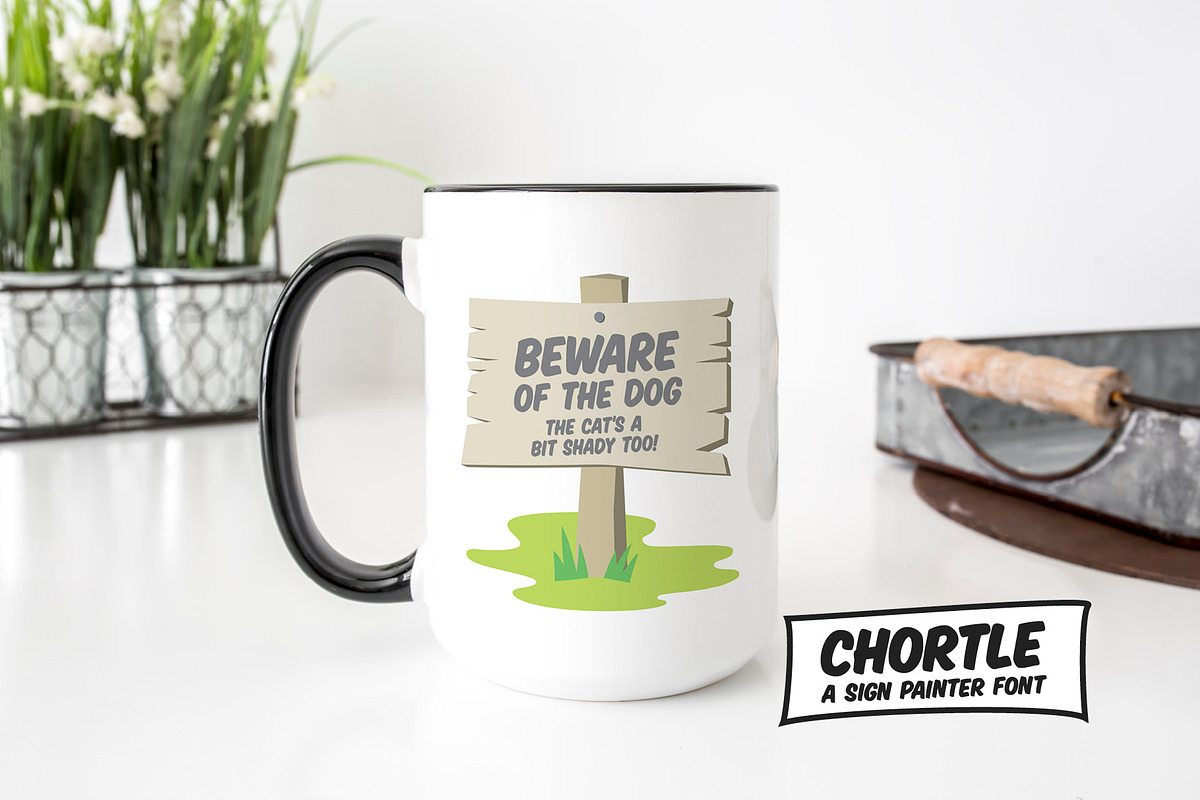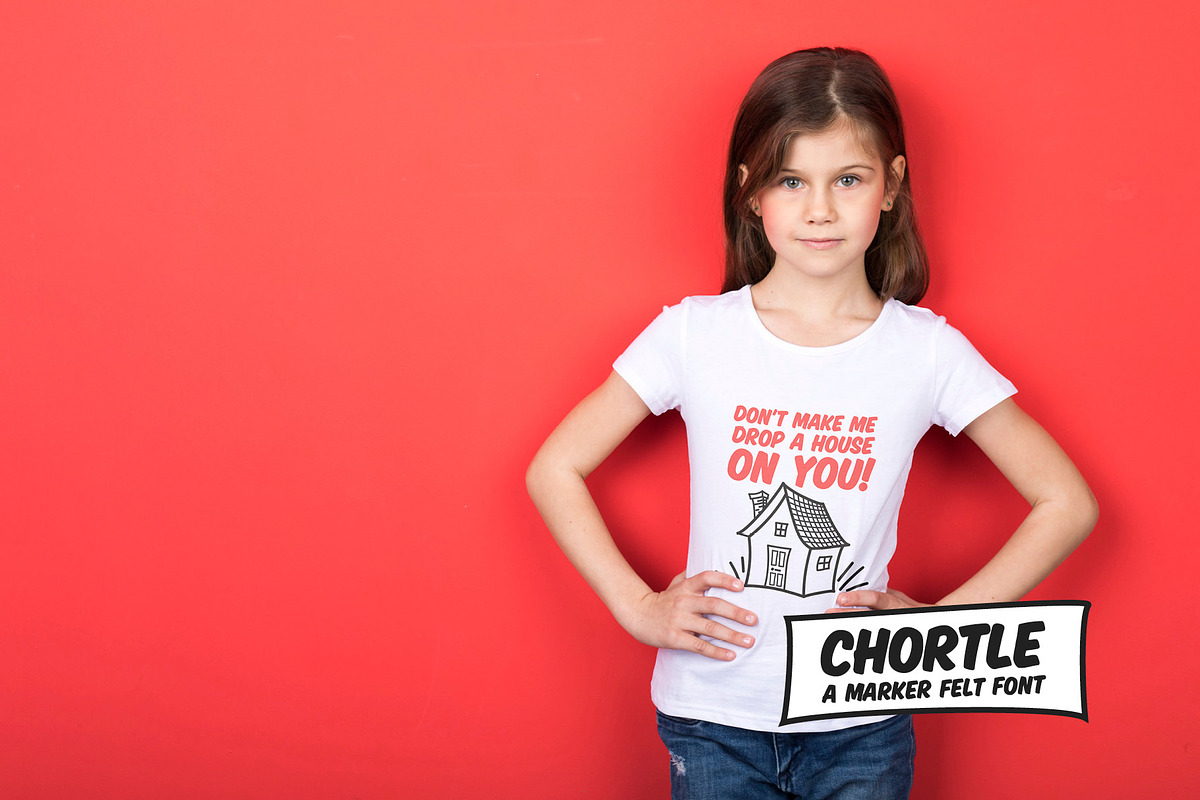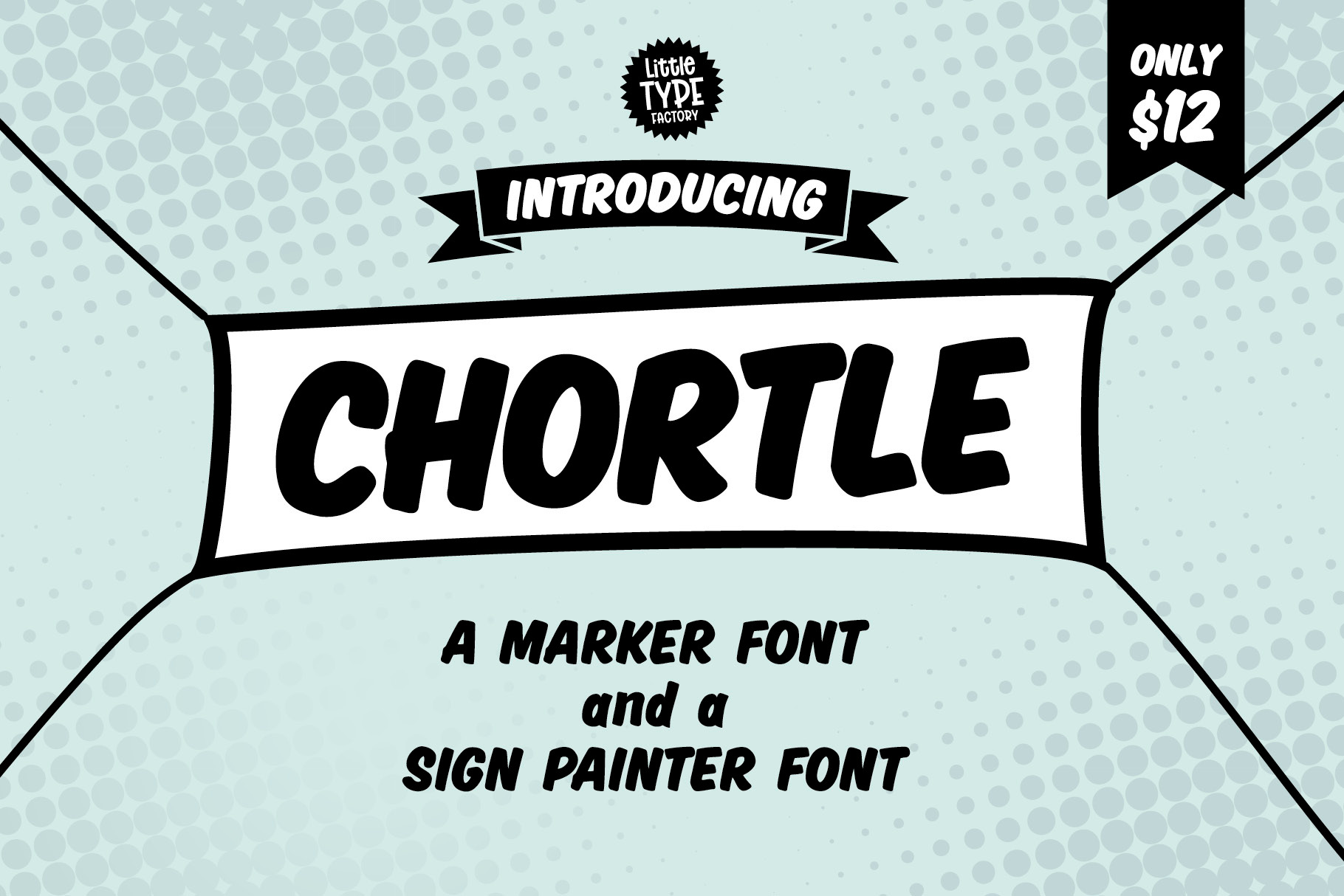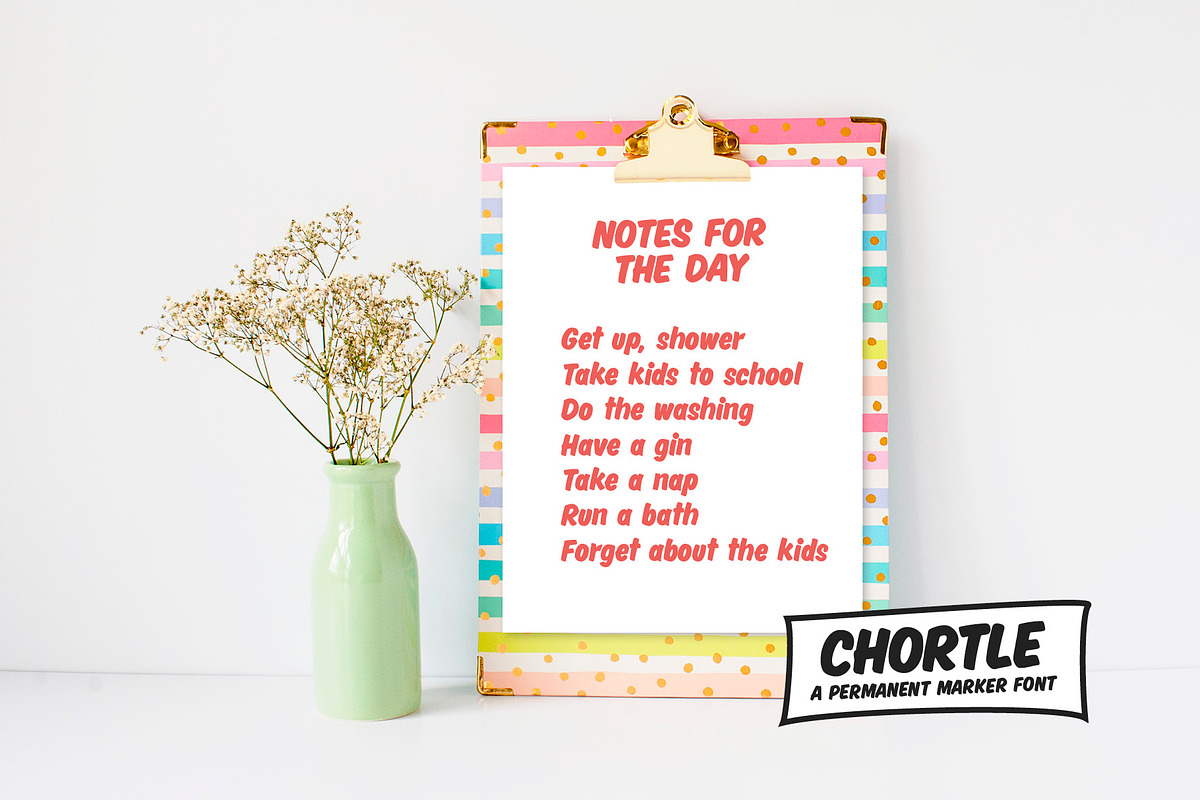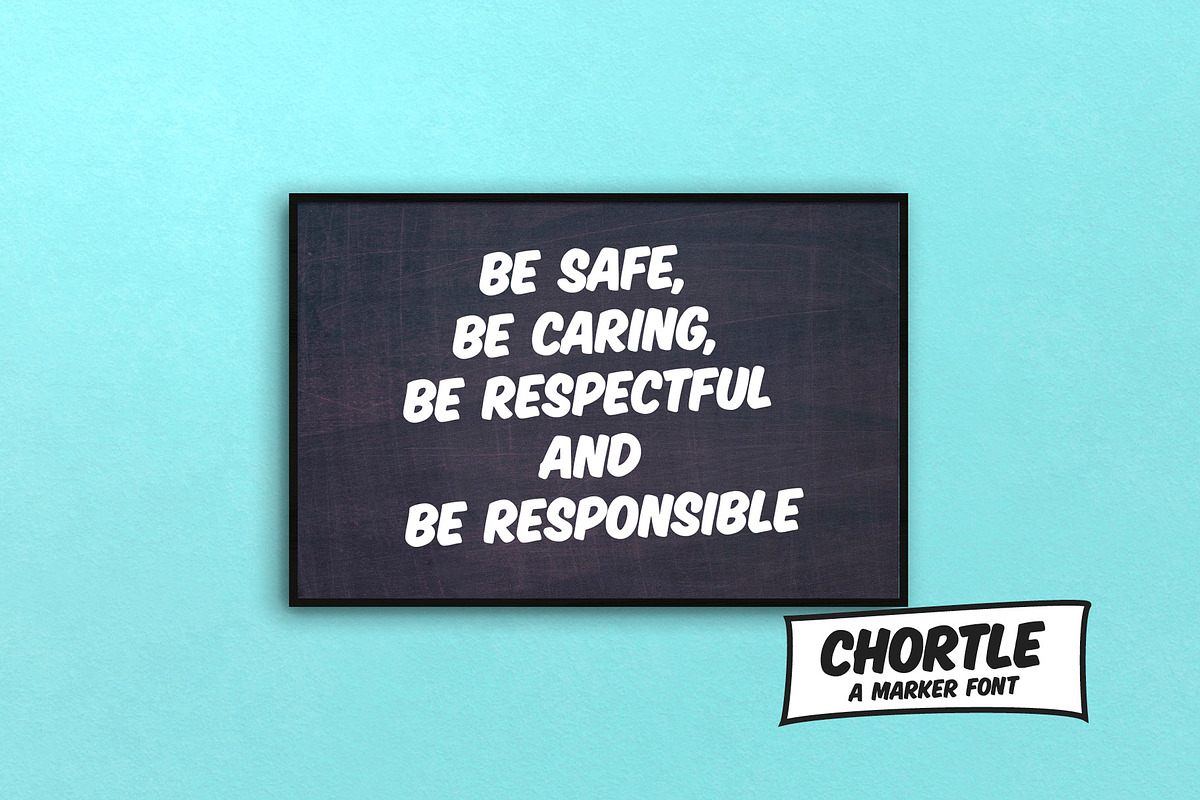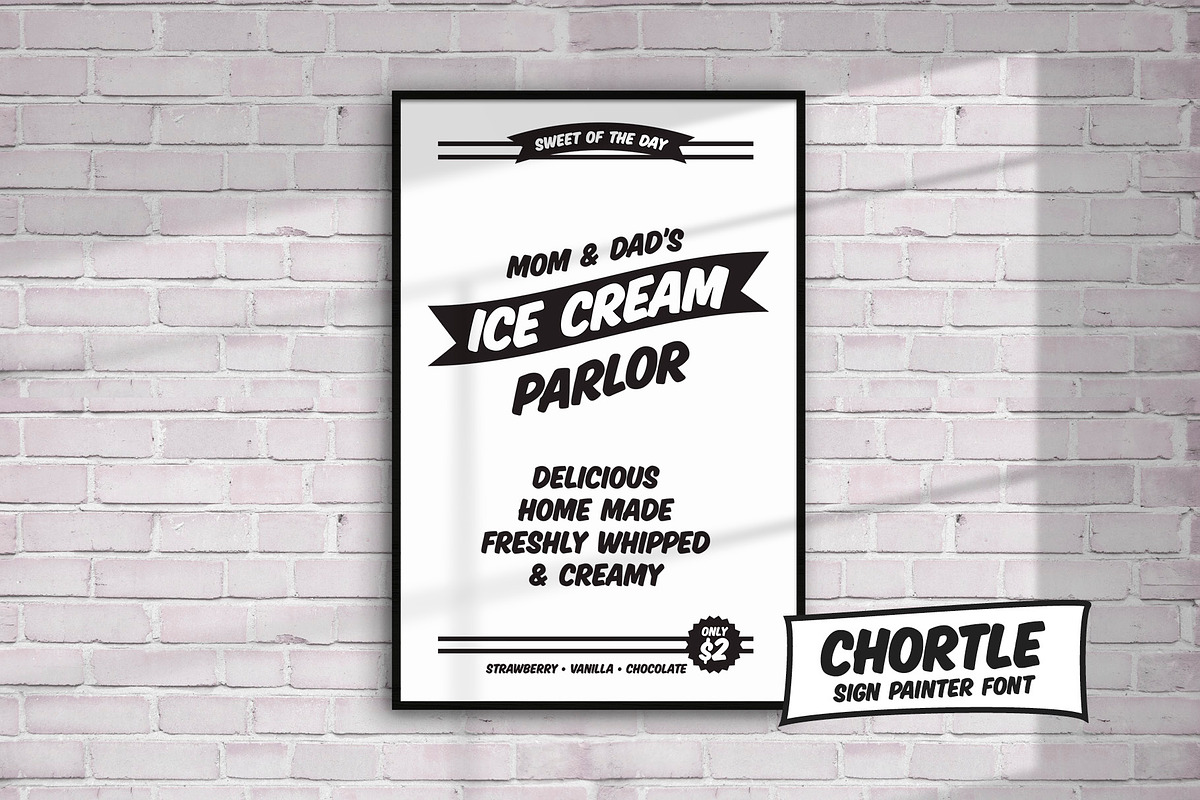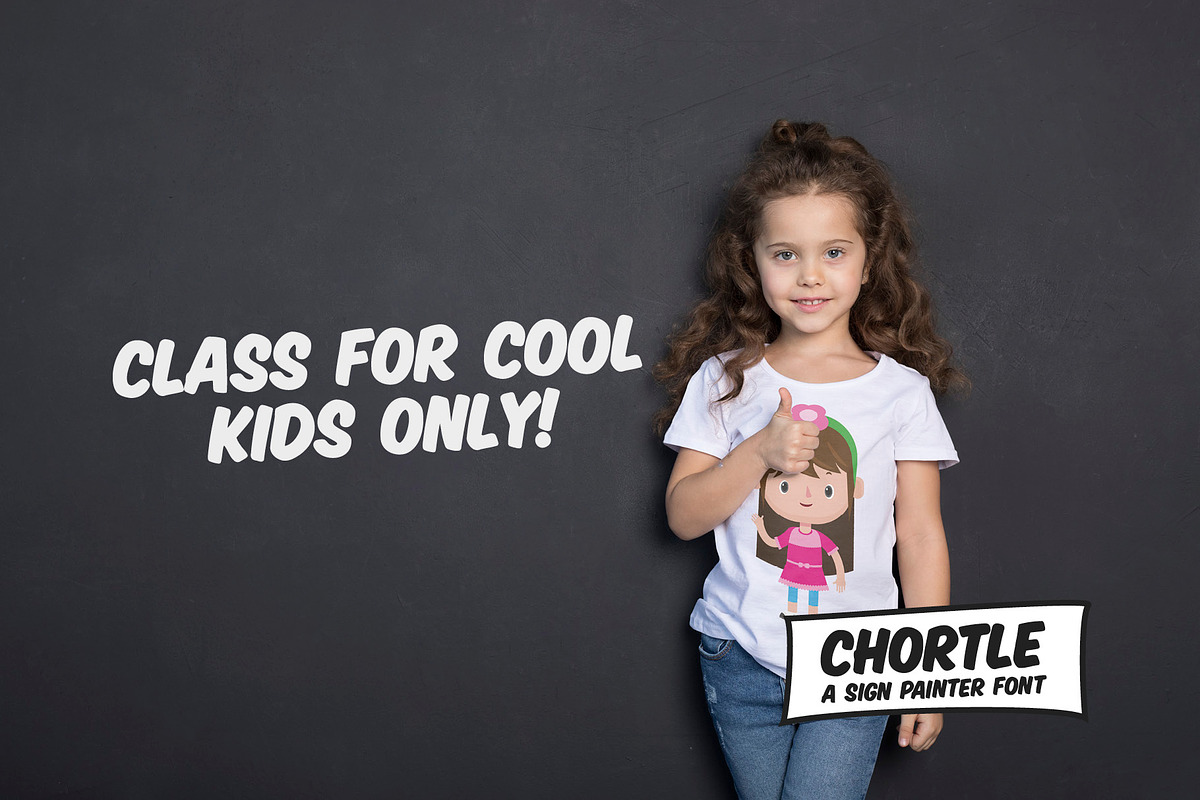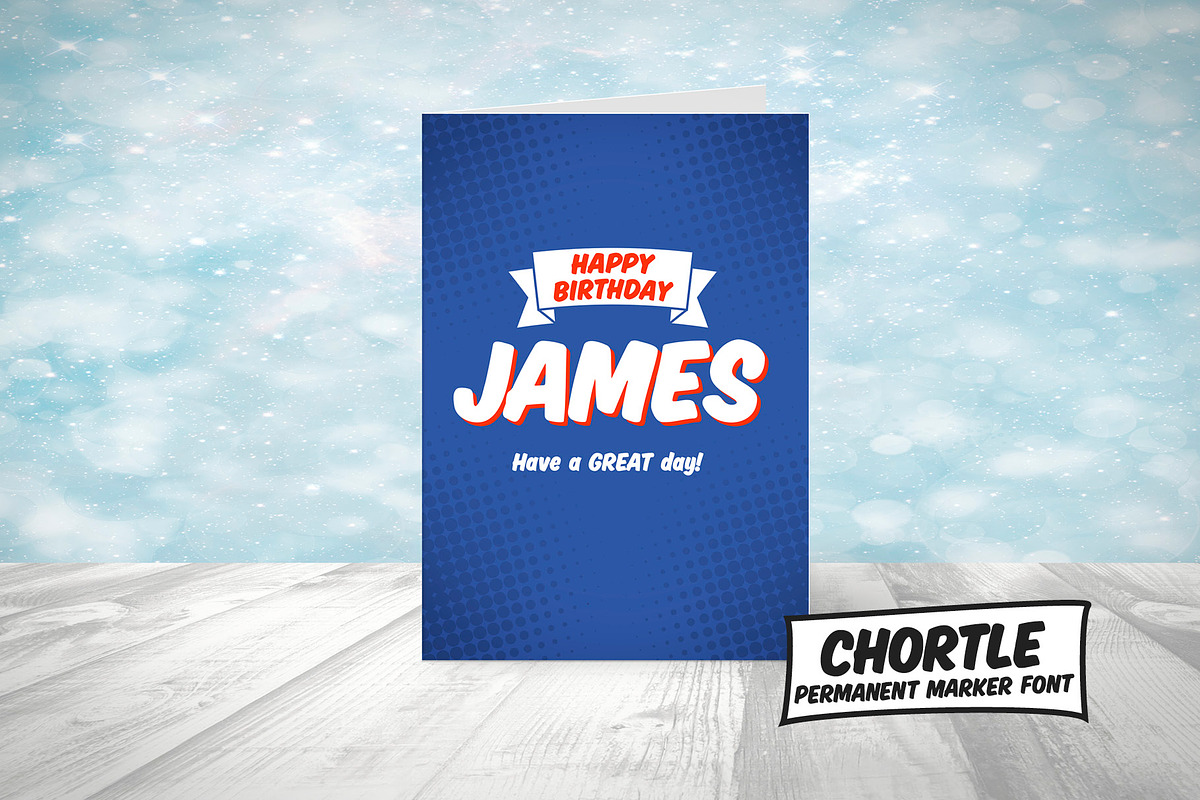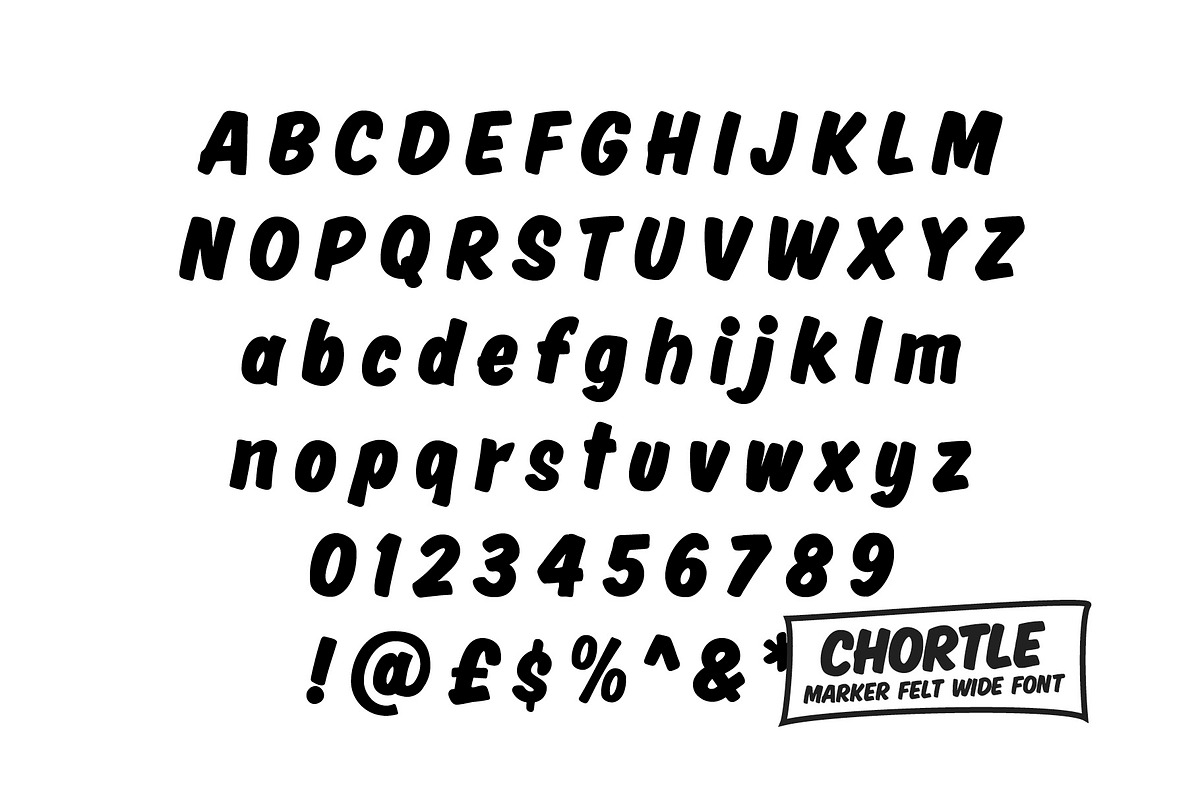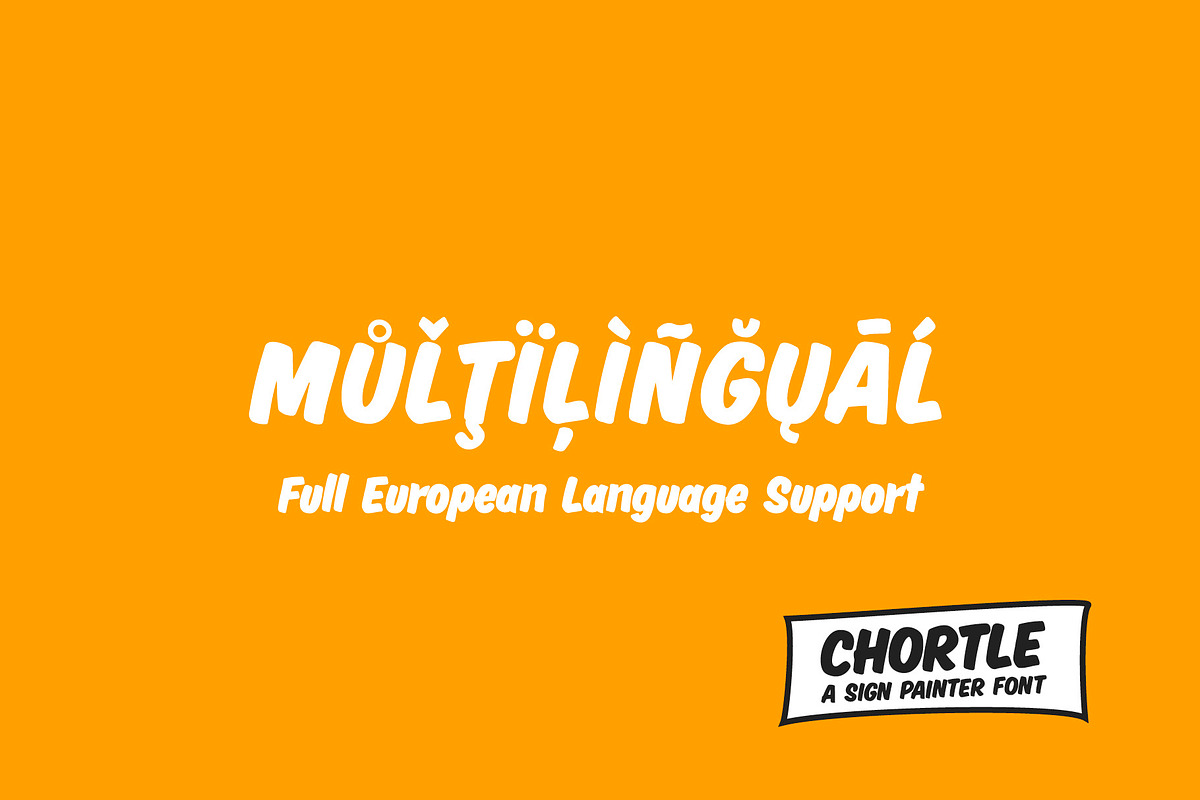
Chortle Sign Painter & Marker Font
Use as a permanent marker font or sign painter font. Fun, bold and perfect for vintage signs and cartoon style designs. Also great as a boys font.
Designed as a hand drawn Sign Painter Font for use in vintage sign designs this has a market, or farmyard, style. It's great for those 'SALE' signs! Adds a hand painted touch to your work.
Can also be used as a permanent marker font. Nice and thick, this packs a punch. Use for messages, titles, quotes or headlines. A marker felt wide font.
This is such a great font. So many uses. Perhaps, use as a cartoon font, it's great for all those comic book designs!
Multilingual, this includes all European accents.